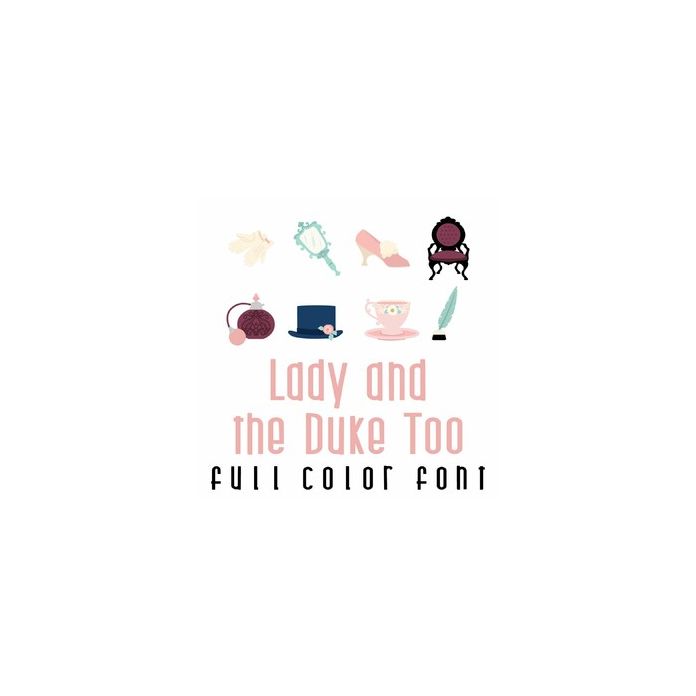
This adorable full color doodlebat font features 26 items from the 1800's era. Perfect for cards, crafts, decor, scrap book pages, planner stickers and more!